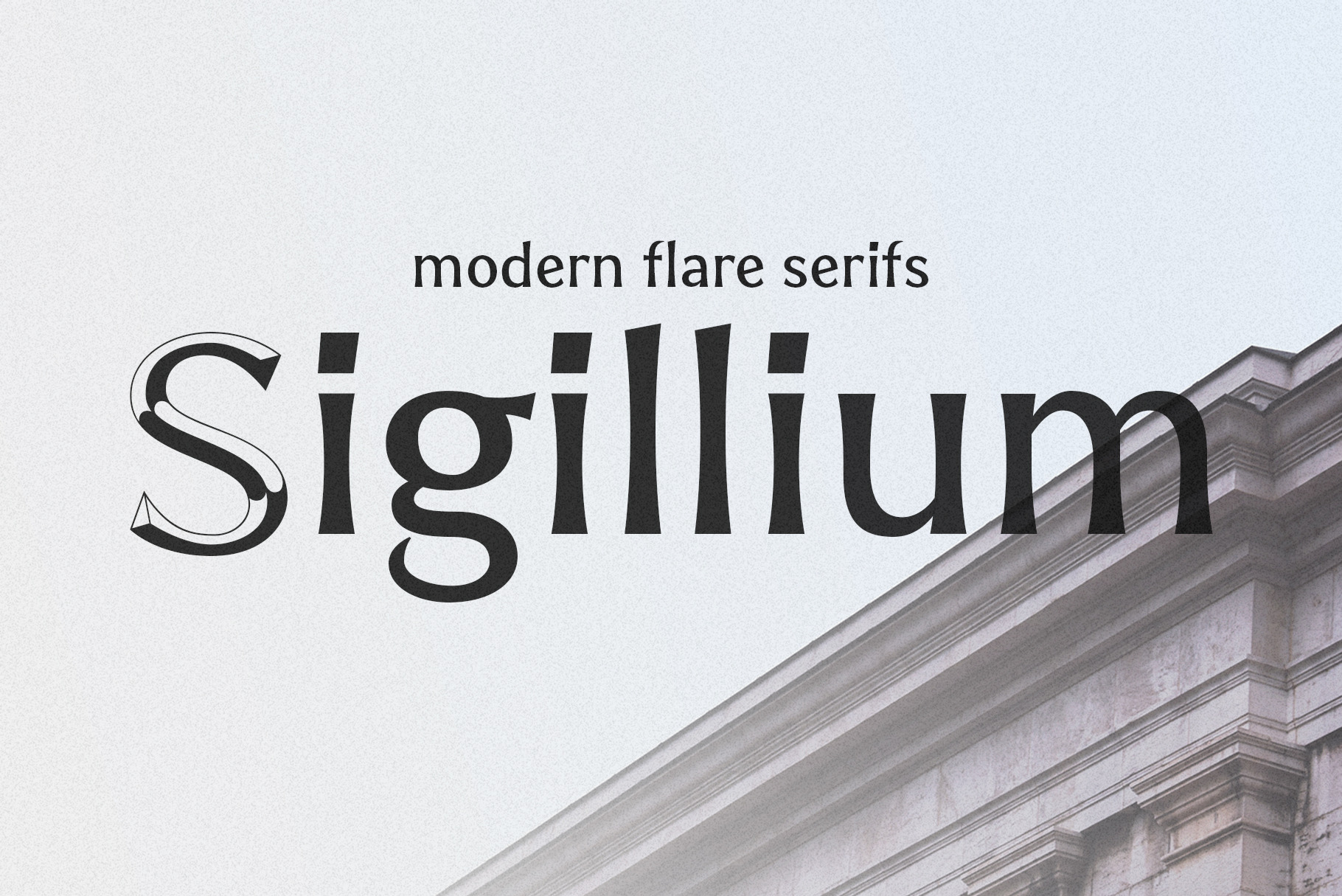
Sigillium - carved flare serif fonts
Sigillium is a flare serif typefaces, which inspired by early XX centuries sign painting advertising. It has strong historical nature. Letters proportions are very closed to the Roman Capital Letters. Sharp flare serifs endings give special medieval style to the typeface.
4 types in Upper- and Lowercases
- regular,
- carved, - not filled
- carved with shadow, - the light falls from the top left
- carved with shadow-2, - the light falls from the bottom right